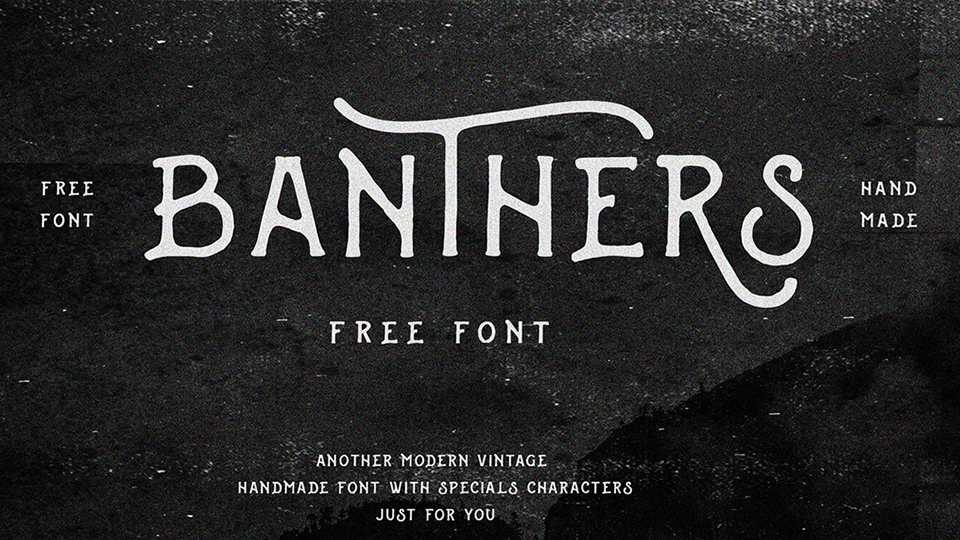
Download Banthers font – a handmade vintage monoline display typeface, which is combining the style of classic typography with an modern handlettering style.